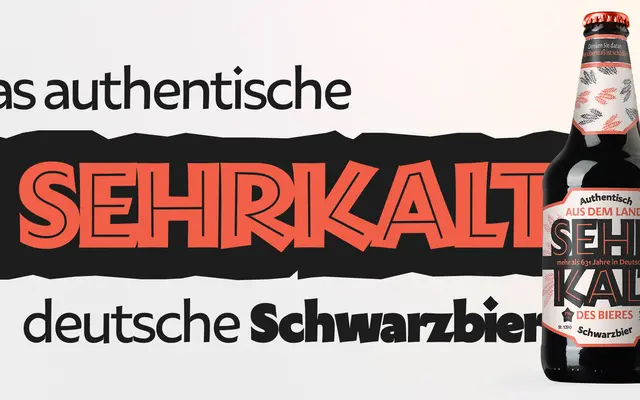
A decorative display family by Pedro González, drawing from Rudolf Koch's Carved Letter tradition across ten weights plus inline, initials and ornamental variants.
Developed between 2015 and 2021, the family spans ten upright weights from Thin to ExtraDark alongside two Inline cuts, a dedicated Initials set, an Ornaments variant and a weather-themed Dingbats set. The proportions and rhythm remain consistent across all 15 variants, making it practical to mix decorative and functional cuts within a single composition. It targets label design, book and film cover work, posters and educational materials, with an extensive OpenType feature set including swash, discretionary ligatures, multiple stylistic sets and a full range of figure styles.
Inspired by Rudolf Koch's Carved Letter design artwork, PGF-Americas is a decorative display family intended for headlines, posters, labels and cover design rather than extended text use.